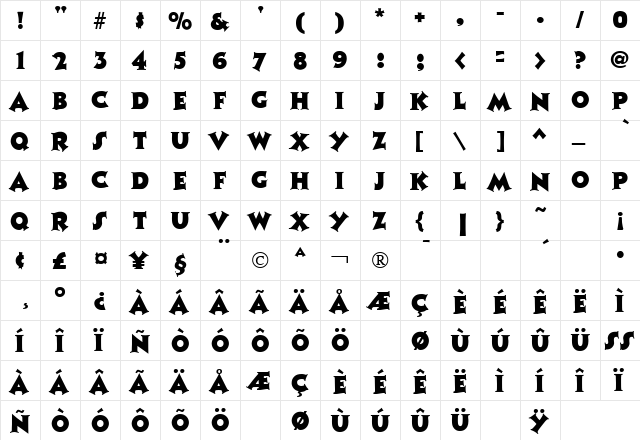
Disney Toon Town Regular
Design Context for Disney Toon Town Typeface
Disney Toon Town is a composed and adaptable typeface that performs quietly and consistently across a wide range of design contexts.